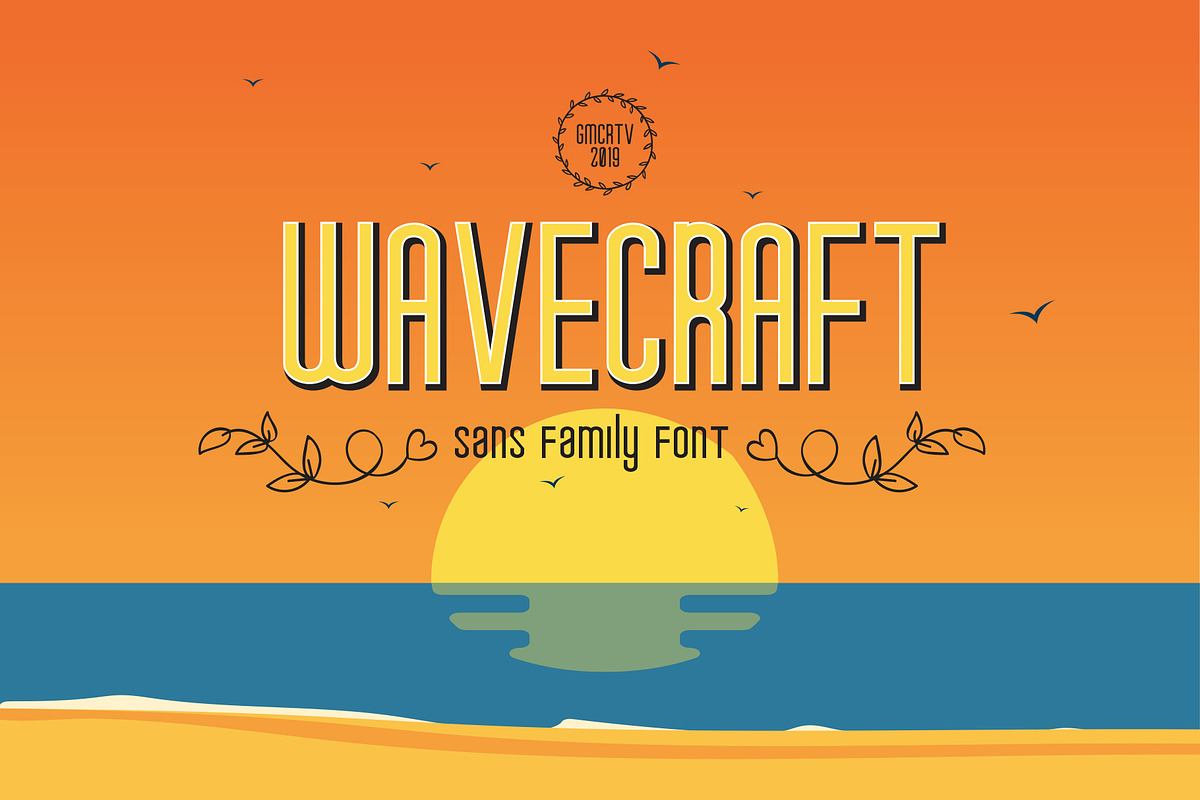
Wavecraft Font Free Download is a modern, artistic display typeface inspired by the movement and rhythm of ocean waves. With its smooth curves, fluid strokes, and creative flair, this font is perfect for surf brands, travel posters, beach-themed apparel, logo design, and eye-catching social media graphics.
Wavecraft blends elegance with a carefree vibe, making it ideal for projects that aim to feel natural, stylish, and adventurous. Whether you’re designing for a summer event or an ocean-inspired product, this font adds flow and personality. Wavecraft Font Free Download allows you to try it in personal projects before purchasing a commercial license.
Make your designs ripple with creativity using Wavecraft — the font that flows with style and coastal charm.